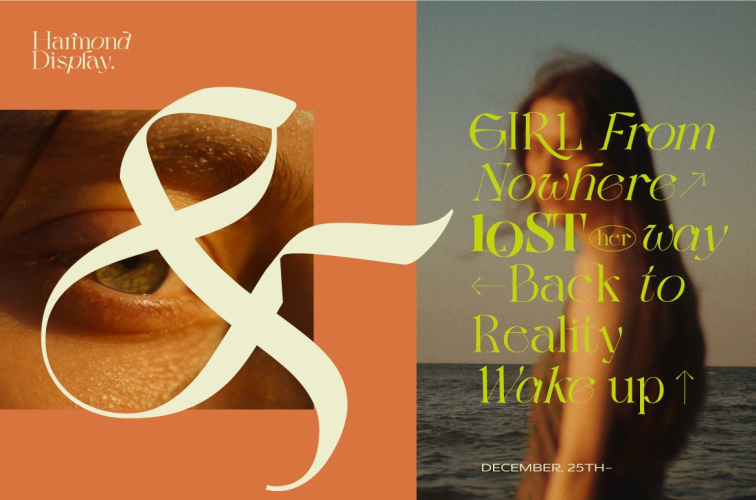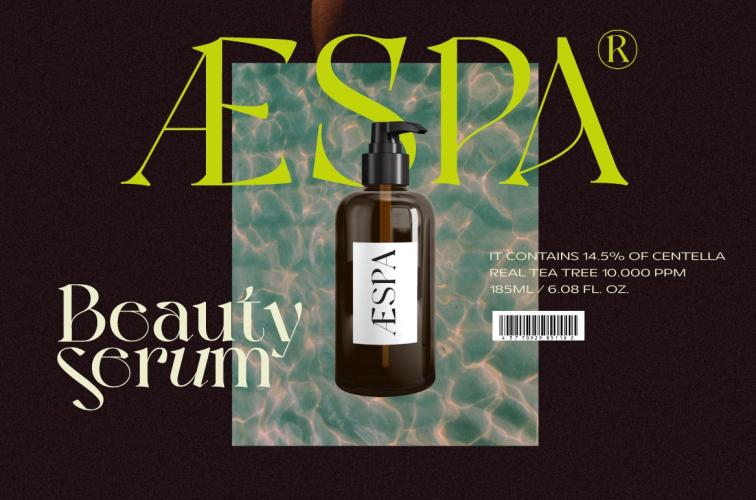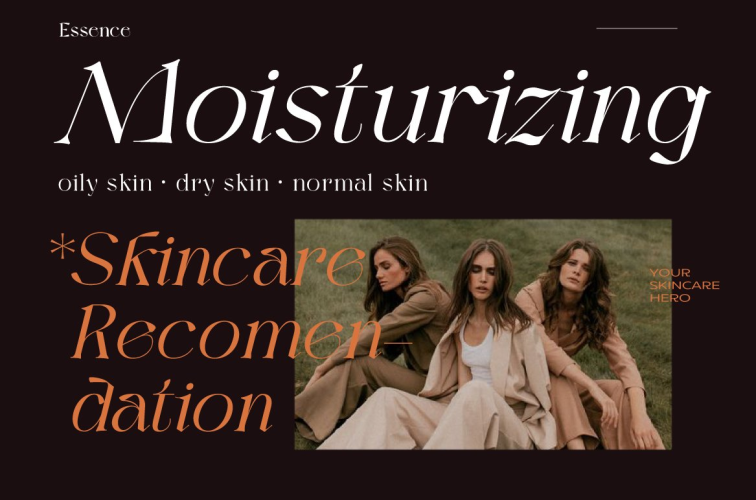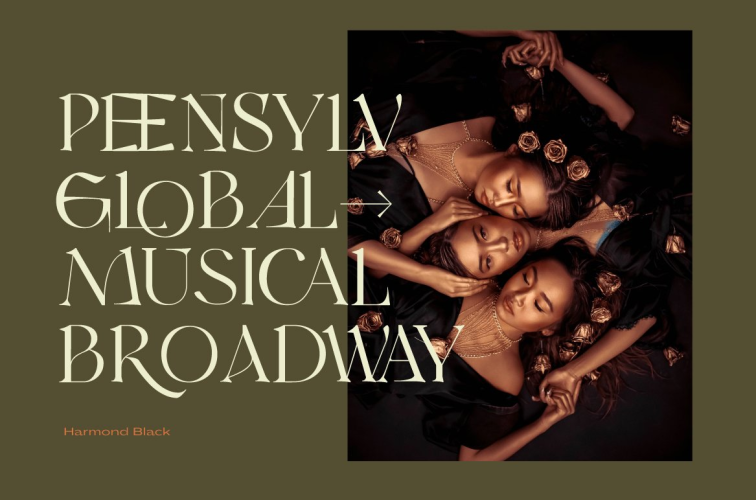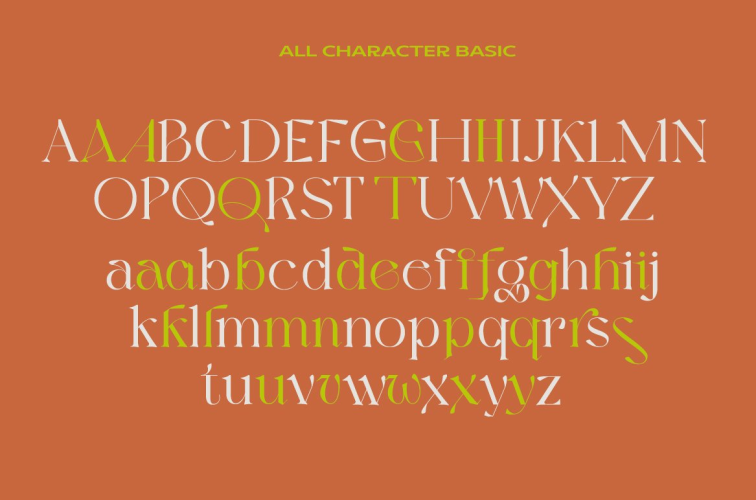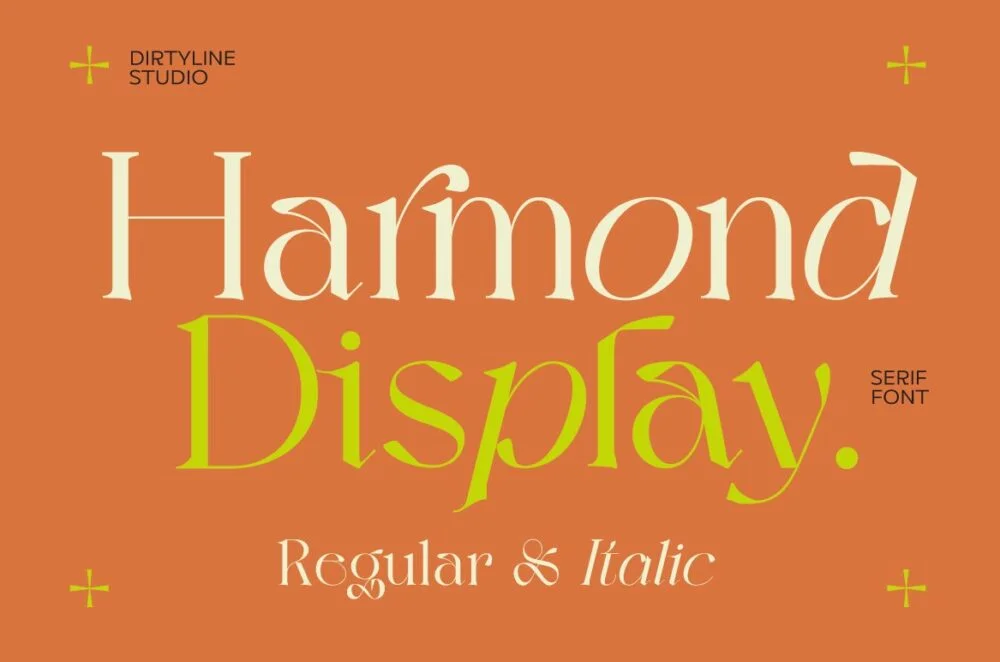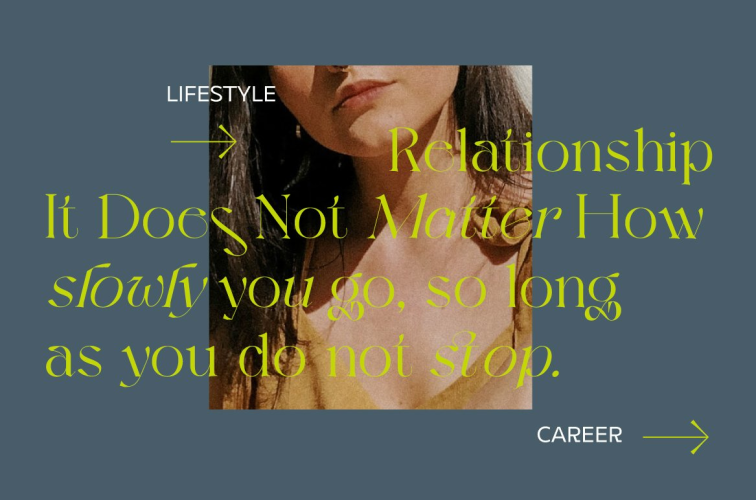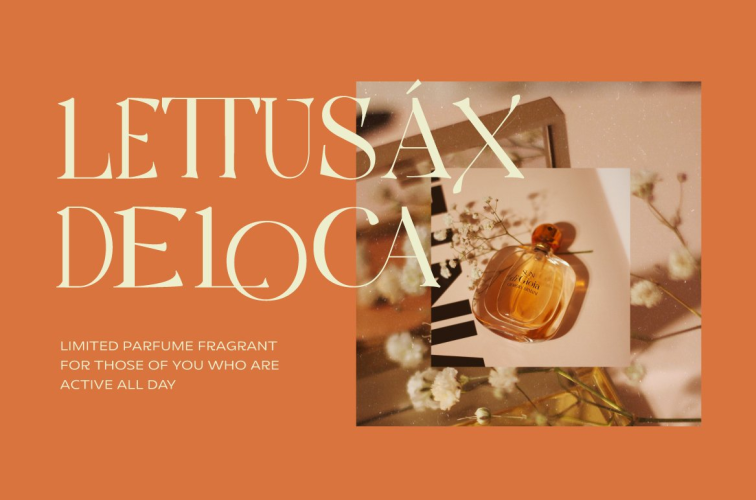
Harmond Font
Harmond Font is a new fresh & modern serif with a strong style, a dancing baseline! So beautiful on invitations like greeting cards, branding materials, business cards,…
Harmond Font is a new fresh & modern serif with a strong style, a dancing baseline! So beautiful on invitations like greeting cards, branding materials, business cards, quotes, posters, and more!
Harmond Display Typeface is part of a strong and modern display family. This typeface is both impressive at display sizes and easily readable in text size, while the sharp shapes of the triangular serifs and the distinctive letter shapes show their strength in logo design and impressive editorial use. the font is ready to be like a top model on the design catwalk, making your projects look classic but contemporary, finely tuned but assertive, and elegant as the best luxury fashion.
Where Harmond Font works best
Harmond Font gives long-form text a classic, trustworthy rhythm — ideal for magazine spreads, annual reports and book interiors.
Pair Harmond Font with generous letter-spacing for wordmarks in fashion, hospitality, wine and jewellery branding.
Use Harmond Font for slide titles in Keynote, PowerPoint or Google Slides to add authority without looking dated.